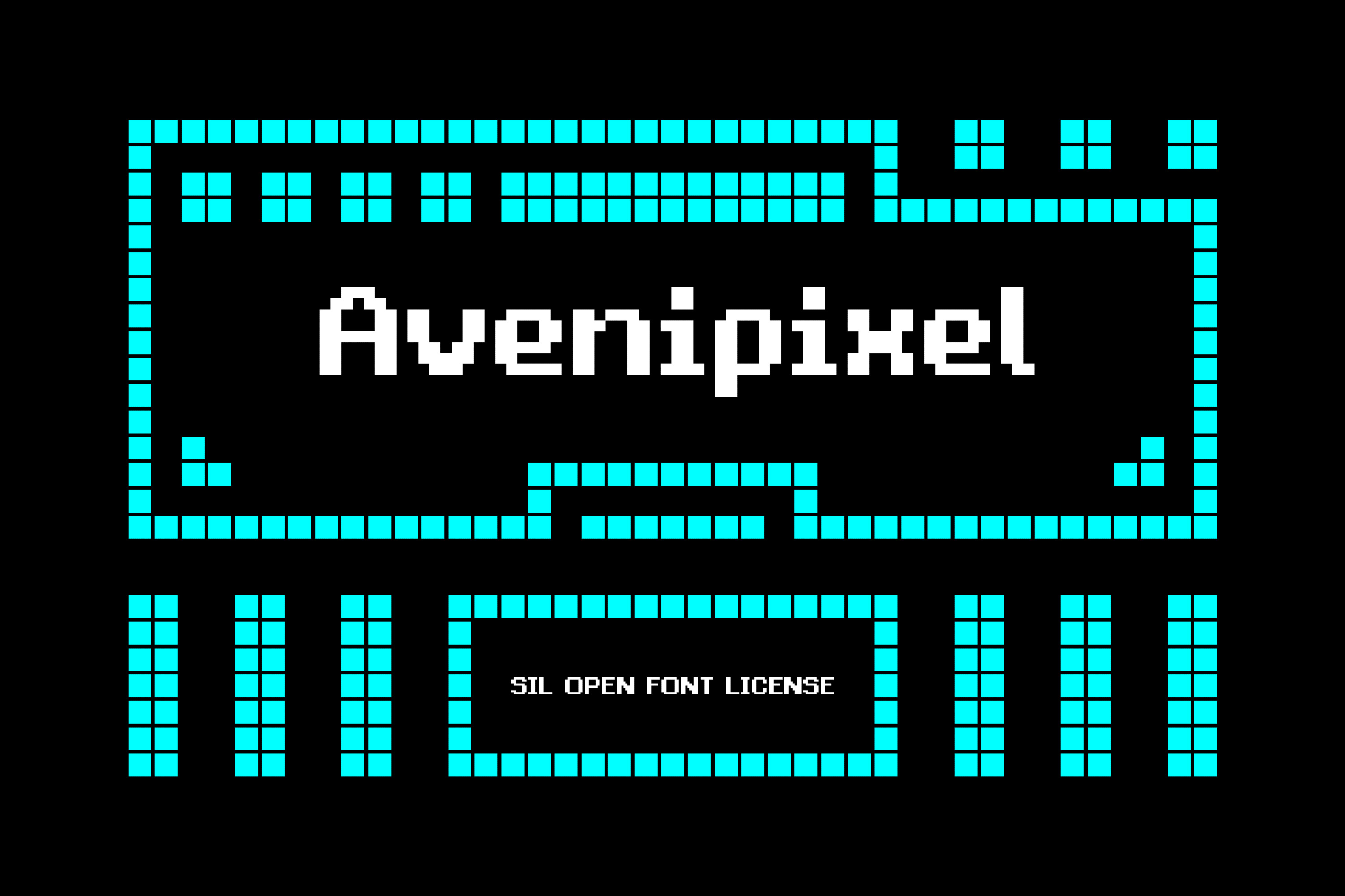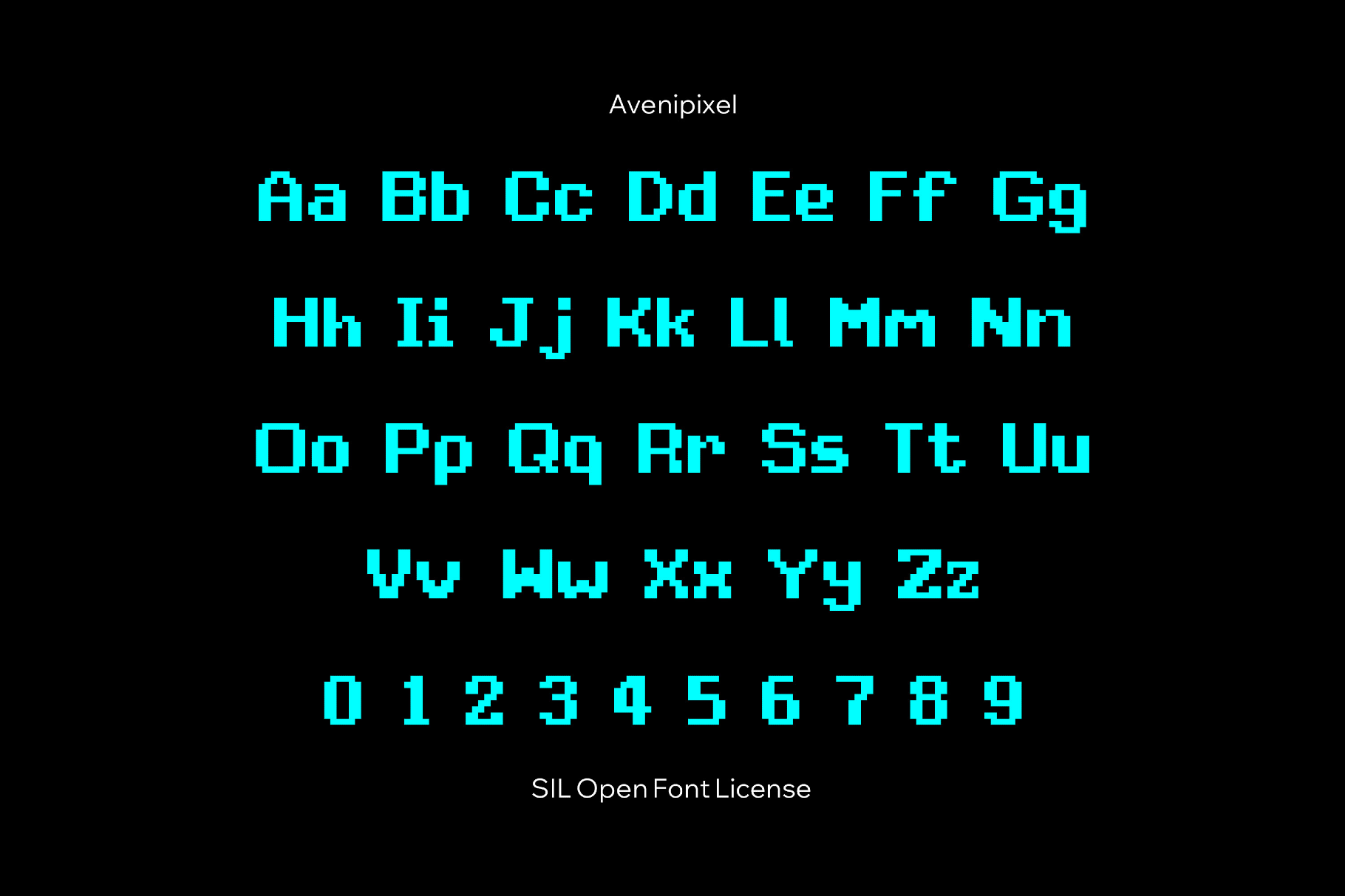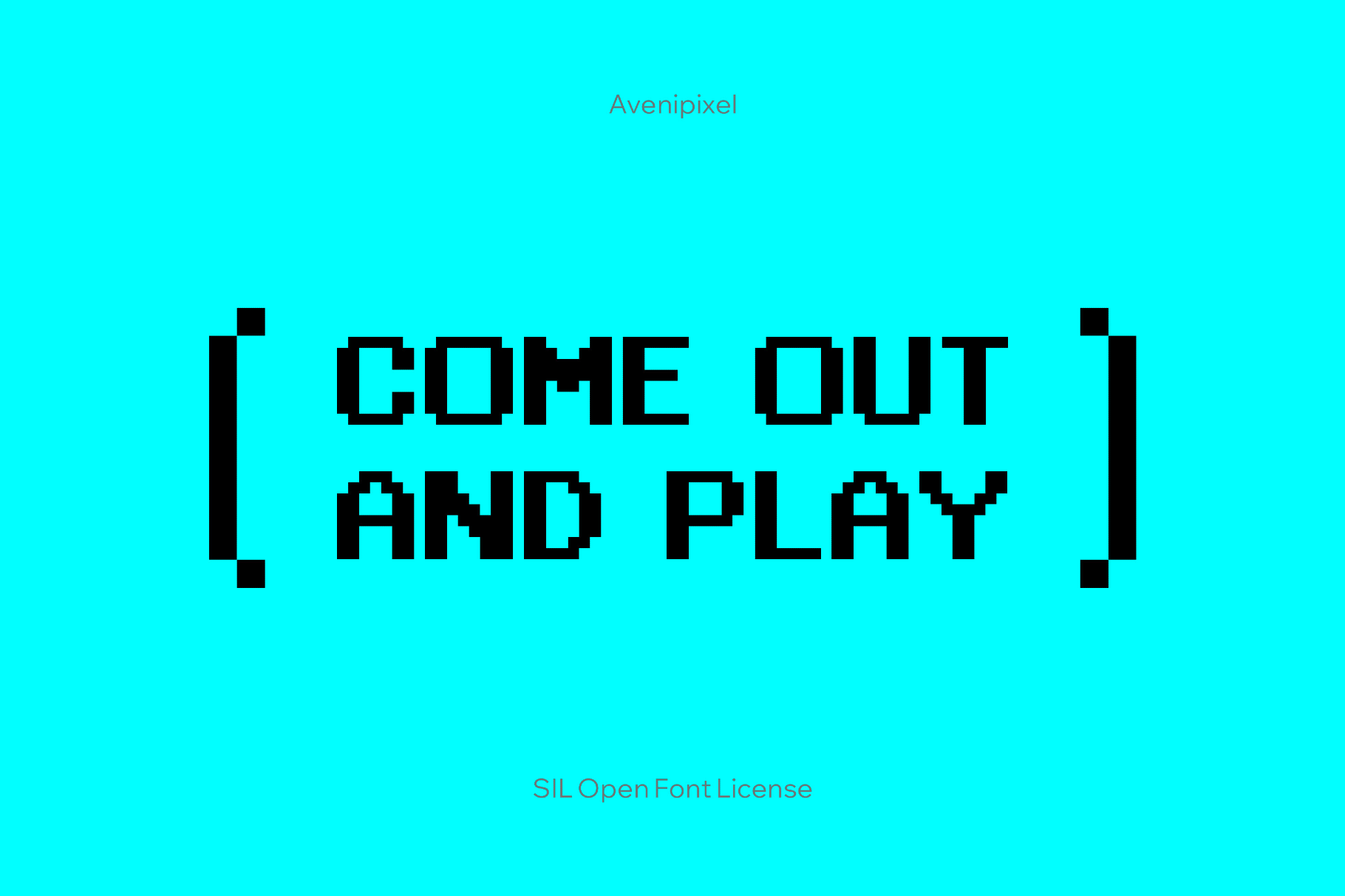
Avenipixel
Avenipixel is a clean sans with open counters, even spacing, and a neutral tone, inspired by Arial. It works well for pixel-art platformers, RPG interfaces, retro-flavored app menus, game HUD labels, stat blocks, indie studio logos, tech and gaming event posters, OS and software mockups, and UI wireframes.
- Uppercase and lowercase letters, numbers, punctuation, and symbols.
- International characters with multilingual support across a broad Latin set.
- Extra symbols suitable for UI, system prompts, and game or app controls.